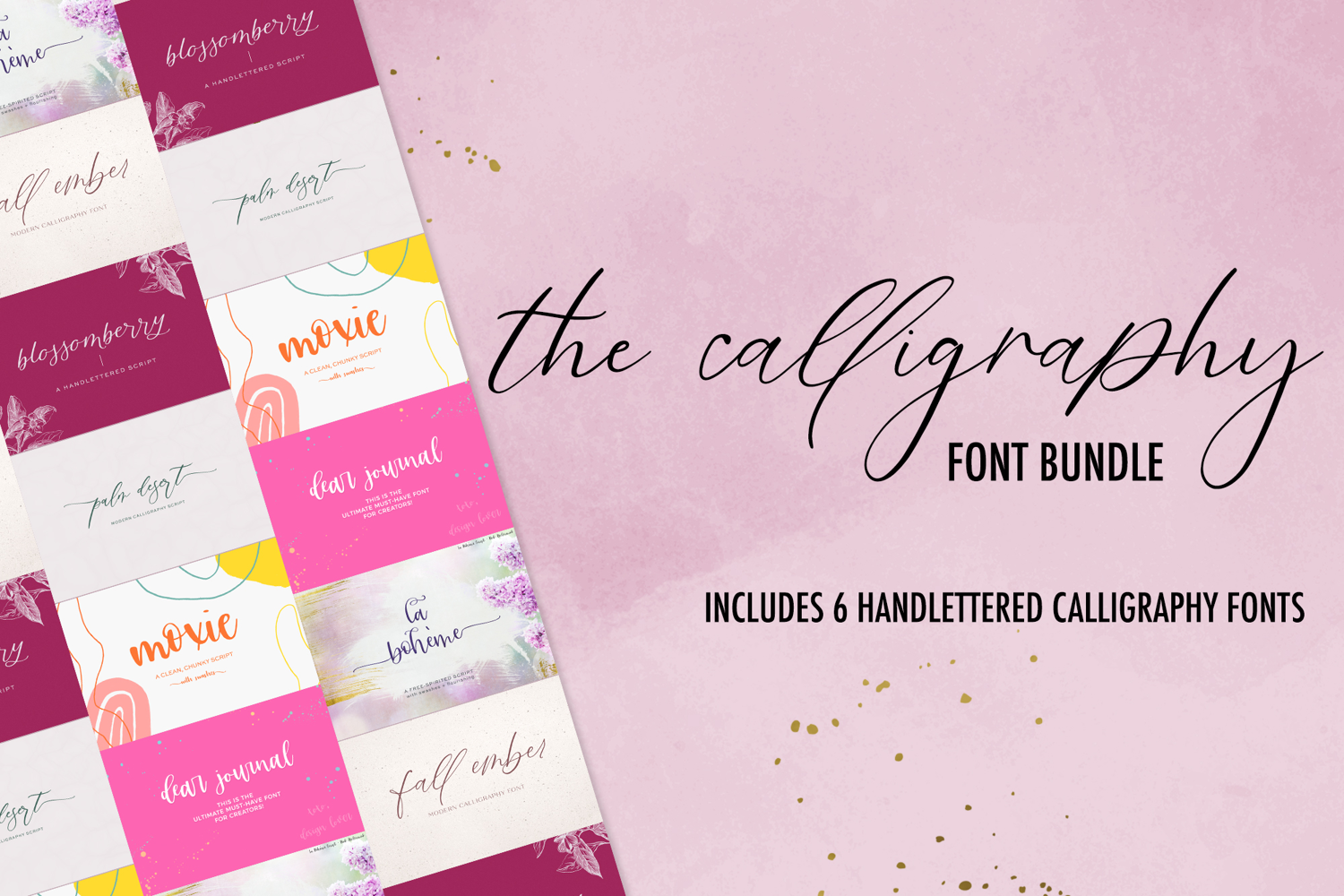
The Calligraphy Font Bundle
This Calligraphy Font Bundle includes:
- Palm Desert Modern Calligraphy Font (with swashes)
- Dear Journal Bounce Calligraphy Font
- Moxie Modern Calligraphy Font (with swashes)
- Blossomberry Bounce Calligraphy Font (with swashes)
- Fall Ember Modern Calligraphy Font
- and La Boheme Modern Calligraphy Font (with swashes)
These handlettered fonts are perfect for feminine projects: logos & branding, printables & home decor, website elements, social media graphics, & more.